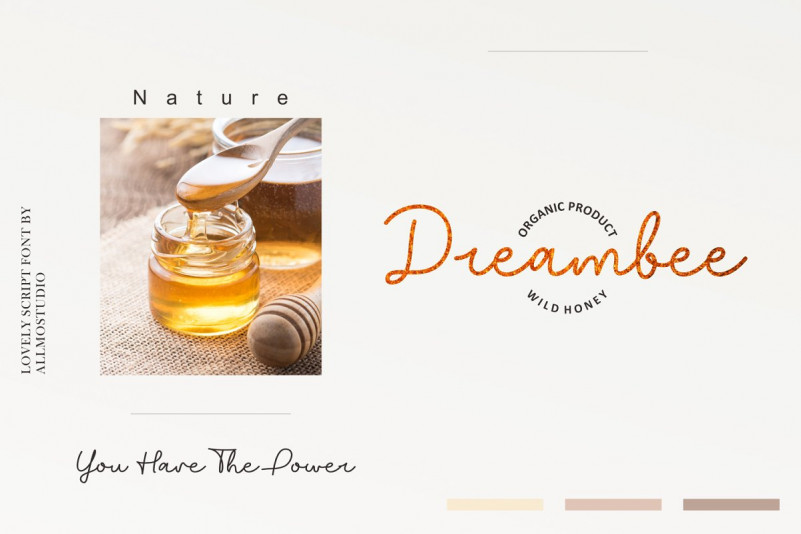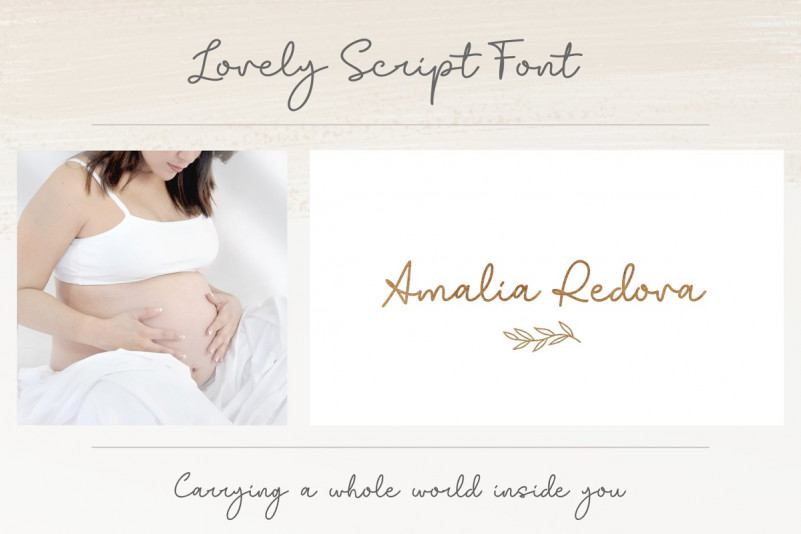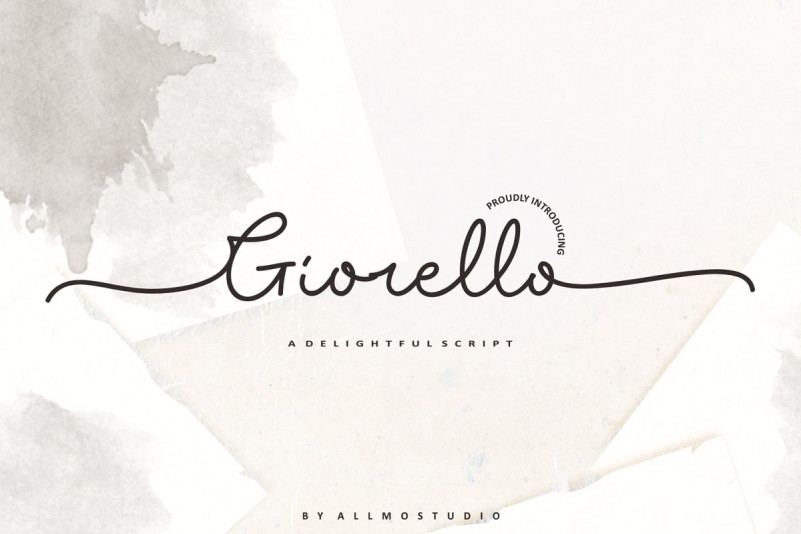
Giorello Signature Font
Giorello Signature Font – A handwritten font with fun and elegant feels. This font offers a unique look and is very attached to your design in a classic or modern style. Giorello designed and shared by AllmoStudio. Giorello Signature was made with a touch of pretty, lovely, feminine and classy I’ve been created to make your design more awesome. perfectly for fashion, feminine brands, blogs, wedding boutiques or any business that wants to appear upscale and chic This font will work on any media, you can use it for logo, headline, typography poster, product packaging, or event your wedding invitation.